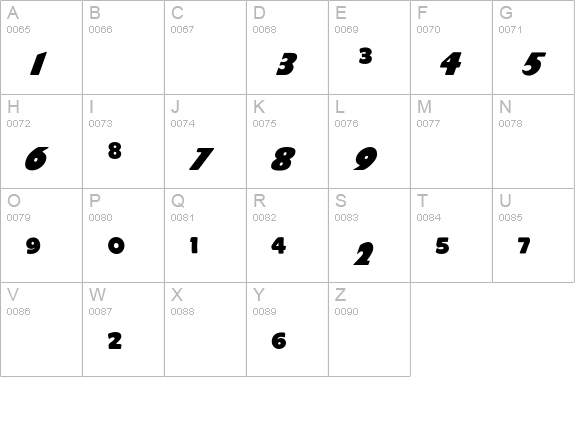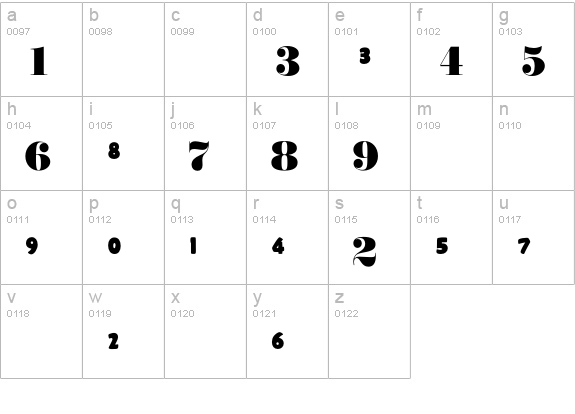
NumericsP07 Font Details
NumericsP07 font is a stunning display typeface that is perfect for adding a modern touch to your designs. With its sleek and geometric design, this font is sure to make a bold statement. The clean lines and sharp angles of NumericsP07 font give it a contemporary and professional look that will elevate any project. What sets NumericsP07 font apart is that it is not only stylish and versatile but also completely free to use. Whether you are designing a logo, website, or any other creative project, NumericsP07 font is a fantastic choice that won't cost you a penny. You can easily download this font for free at FontsMarket.com and start using it in your designs today. Don't miss out on this amazing opportunity to enhance your work with the sleek and modern aesthetic of NumericsP07 font.